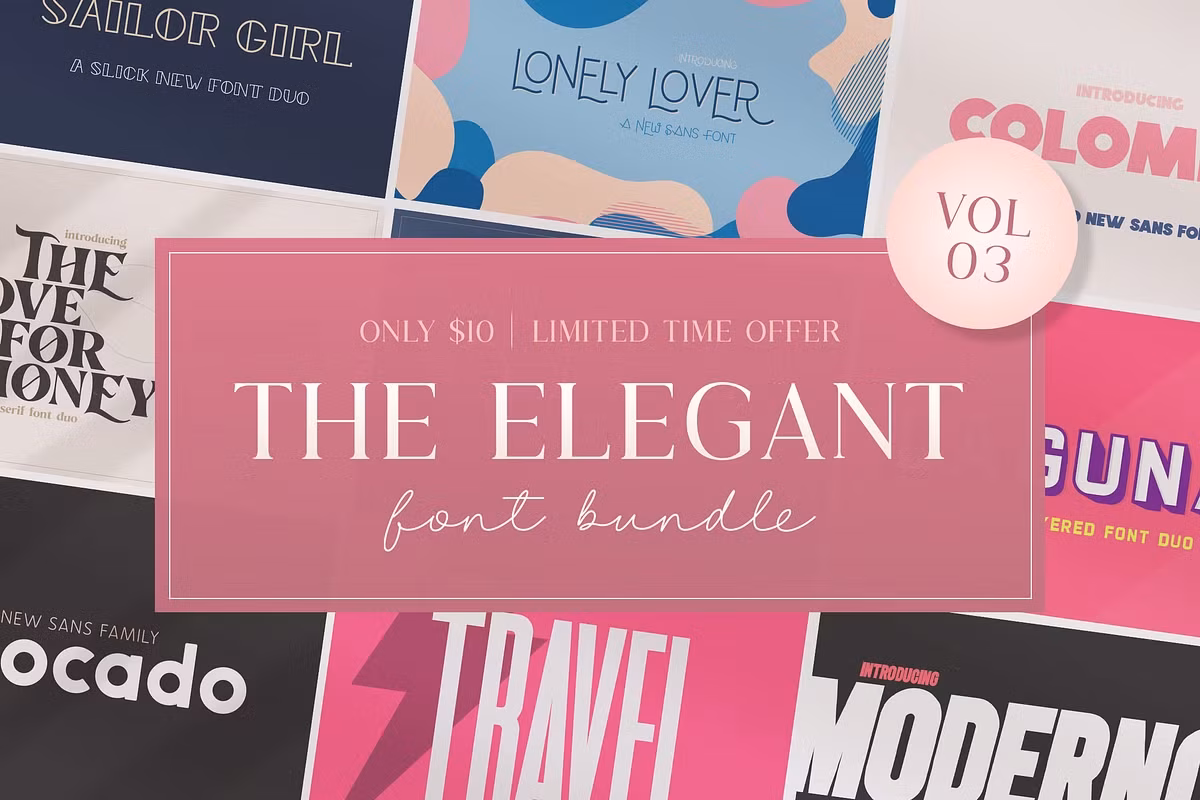
The Elegant Font Bundle - Vol 03 Free Download is a premium collection of refined and sophisticated typefaces crafted for designers who value class, beauty, and versatility. This bundle features a curated mix of luxurious serif fonts, graceful scripts, and stylish display typefaces—perfect for wedding invitations, upscale branding, editorial layouts, fashion packaging, and social media content with a high-end aesthetic.
Each font in this bundle offers its own unique flair, from delicate ligatures to modern curves, allowing you to mix and match styles for endless creative possibilities. Whether you're designing for print or digital, this bundle provides the tools to craft timeless and elegant visuals.